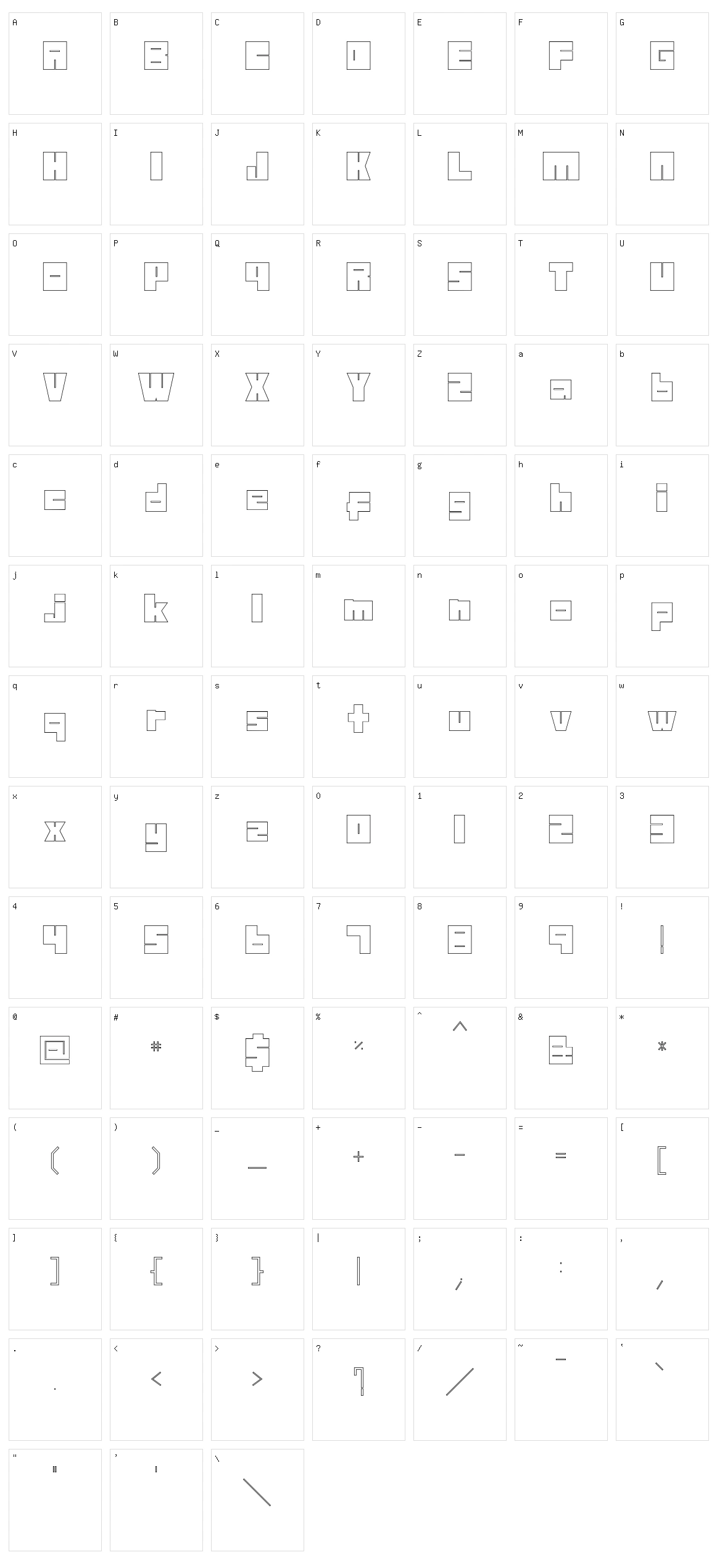
The free font Maze Without Destination is carefully designed by Lucas Nogueira, showcasing a thoughtful balance of creativity and usability and falls under the Square font style. When you download the ZIP file, it contains only 8.91 KB of font files, making it lightweight and quick to download. Please review the license details below to understand permitted usage and distribution rights. If license information is not available, we recommend using this font for personal projects only or contacting the author directly for commercial usage permissions.